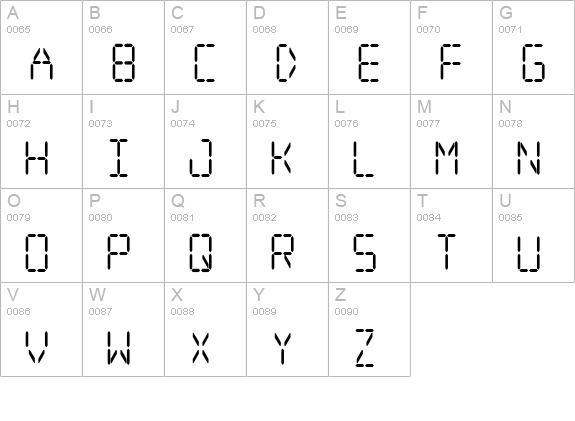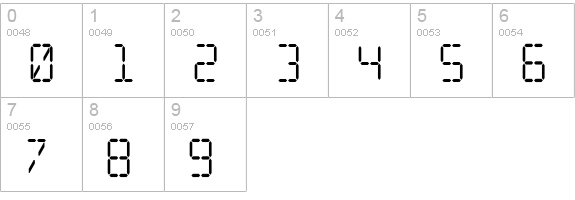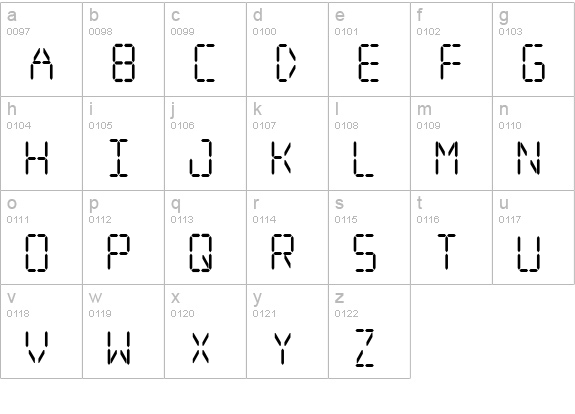
Digital dream Narrow is a distinctive, condensed-width variant in the Digital typeface family \xE2\x80\x94 well suited to design and typography projects.
Digital Dream Narrow font is a sleek and modern typeface that exudes a sense of sophistication and elegance. Its narrow design makes it perfect for creating sleek and professional-looking designs for various projects. The clean lines and sharp edges of this font give it a contemporary and futuristic feel, making it ideal for use in digital and technology-related designs. What sets Digital Dream Narrow font apart is not only its stylish appearance but also the fact that it is available for free download at FontsMarket.com. This means that you can easily access this high-quality font without any cost, making it a valuable resource for designers and creatives looking to add a touch of sophistication to their projects. Whether you are working on a website, branding materials, or any other design project, Digital Dream Narrow font is sure to make a statement and elevate the overall look of your work. Download this font for free today and see how it can take your designs to the next level.